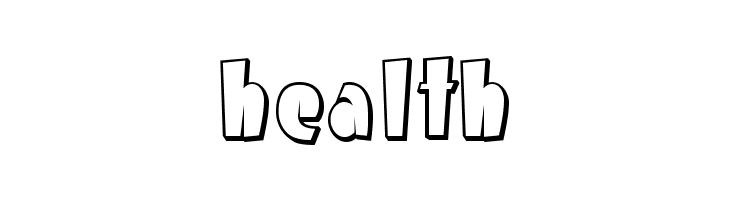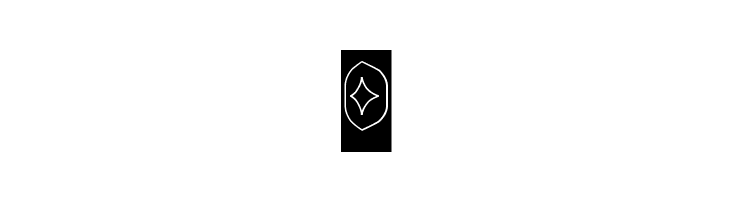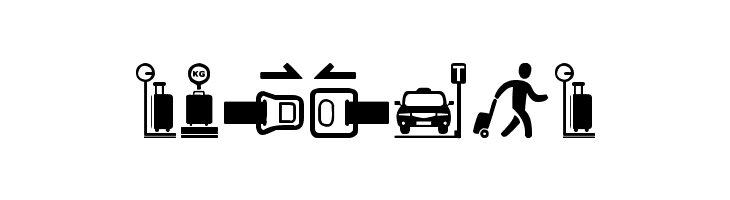
• AirmoleShaded-Regular
A playful, bold font with a shaded, three-dimensional effect.
• AirmoleStripe-Regular
A bold, striped font with a playful and dynamic style.
• AIRPLANE
A bold, geometric font with a futuristic and energetic style.
• AIRPLANE Italic
Bold, italic, and angular font with a dynamic, geometric style.
• AIRPLANE-Hollow
A futuristic, hollow font with geometric and angular design elements.
• AIRPLANE-Hollow-Inverse
A futuristic, geometric font with hollow, outlined characters and sharp edges.
• Airplanes Regular
A decorative font featuring airplane silhouettes as characters, ideal for thematic designs.
• AirplaneScript
A bold, cursive script font with elegant loops and a natural flow.
• Airport Icons
Bold, high-contrast airport-themed pictogram set.
• Airside Sans Regular
A modern, condensed sans-serif font with a geometric structure.